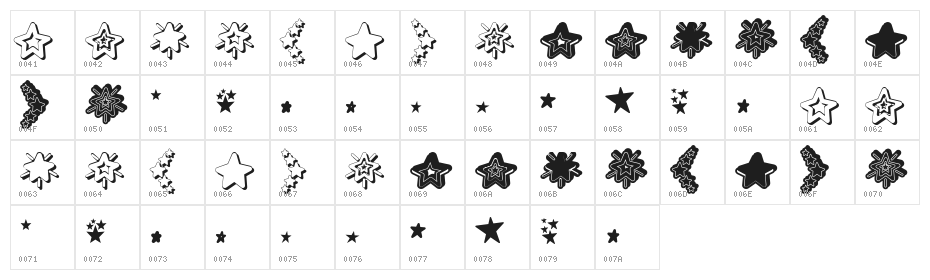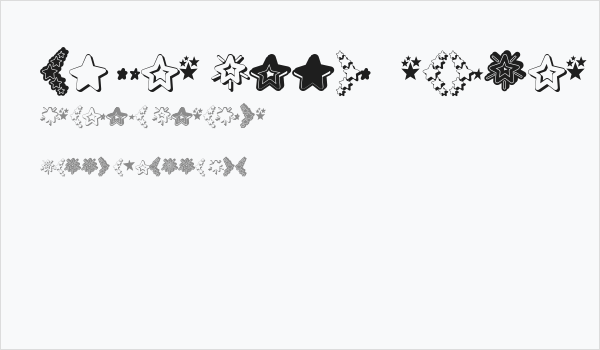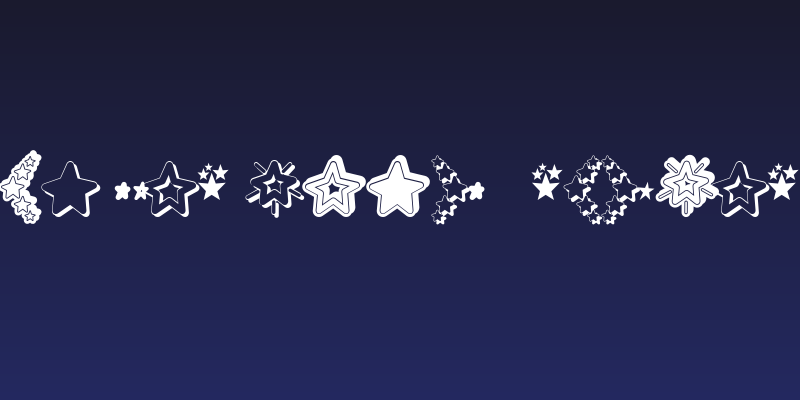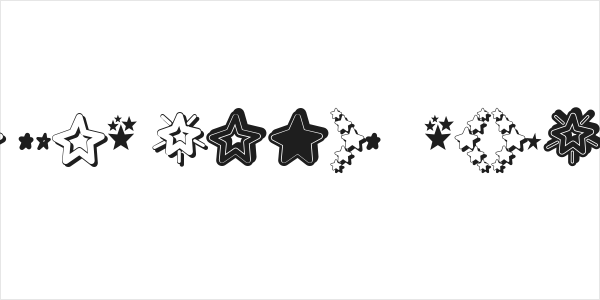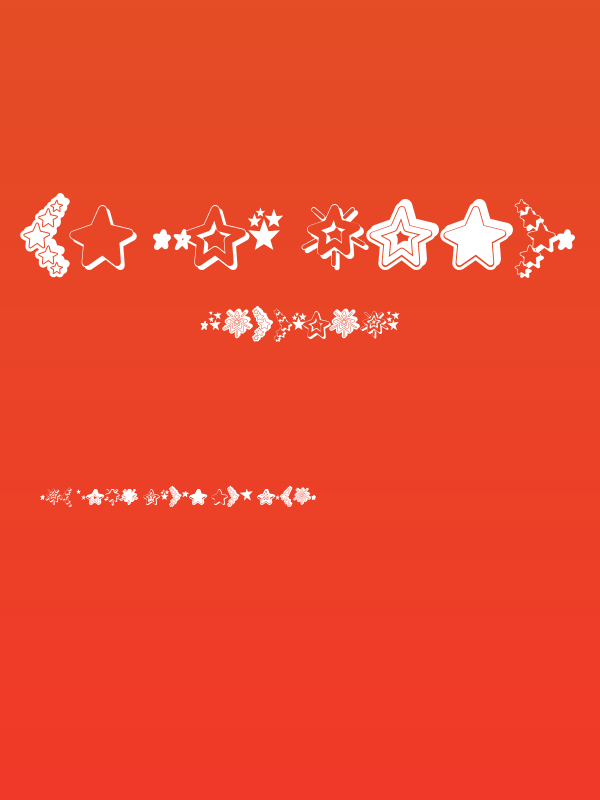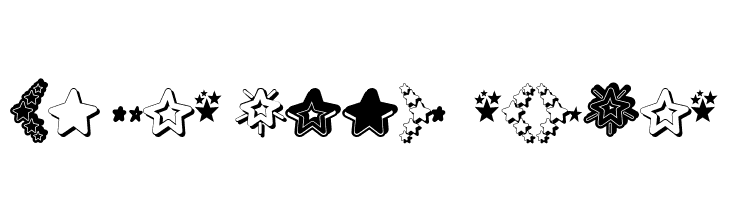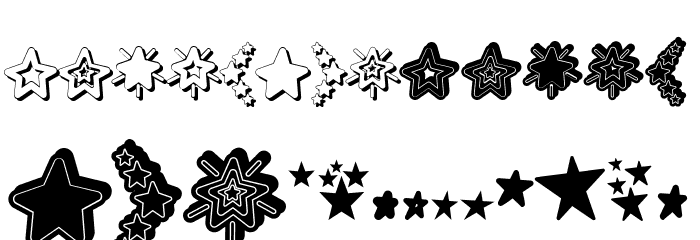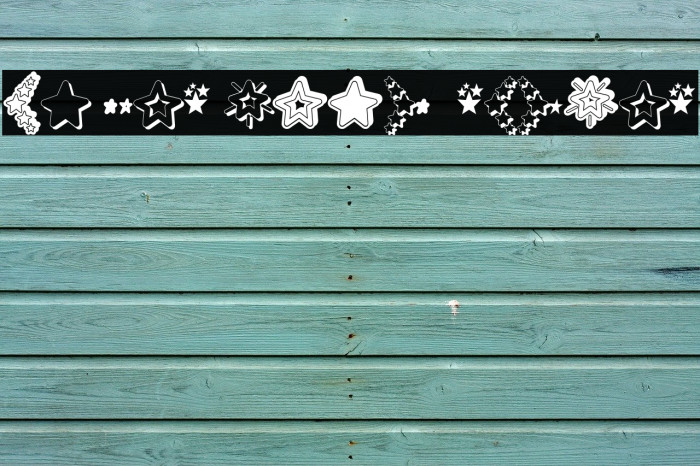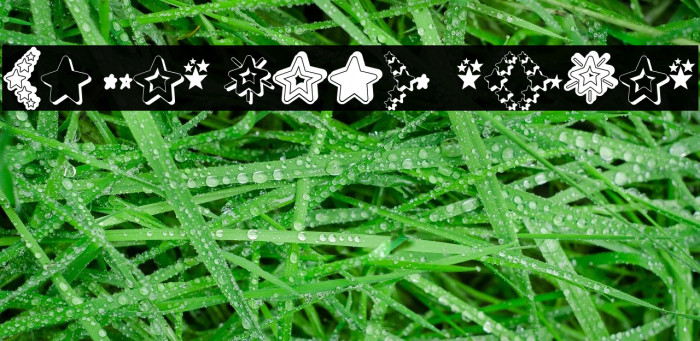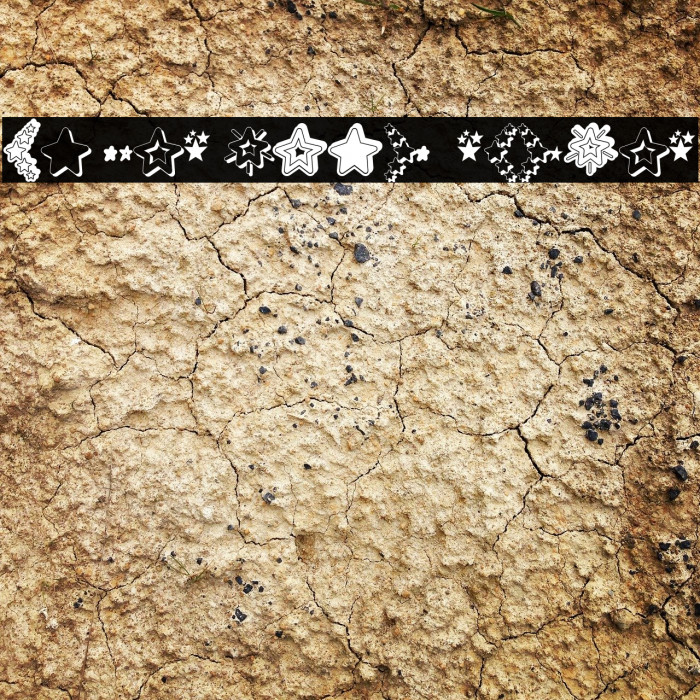
MF Star Dings 2 Regular Font
This collection features a variety of star-themed dingbats, showcasing a playful and decorative style. The designs range from simple outlines to more complex, filled star shapes, each with unique patterns and variations. The stars are presented in different sizes and orientations, offering a dynamic and whimsical appearance. These elements are perfect for adding a touch of creativity and fun to any project, with their bold and eye-catching designs. The consistent theme of stars throughout the set provides a cohesive look, making it suitable for various decorative purposes.
| Use Case | Decorative elements, Illustrations |
| Proposed Projects | Ideal for scrapbooking, party invitations, children's book illustrations, and decorative borders. |